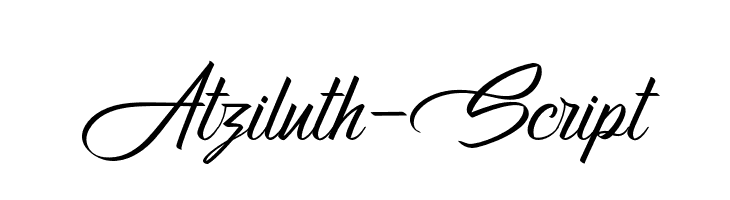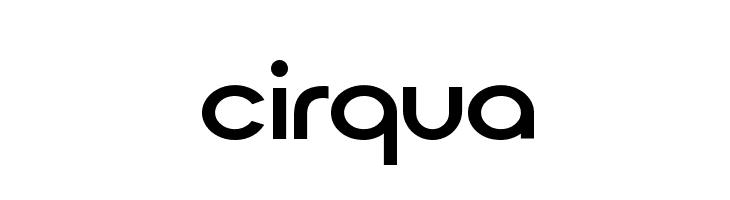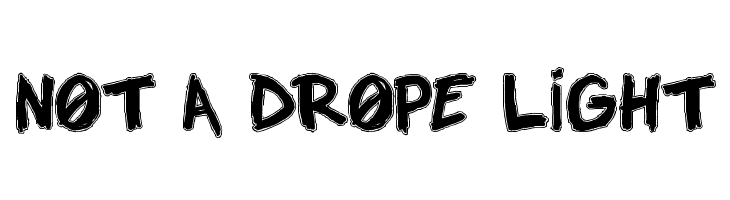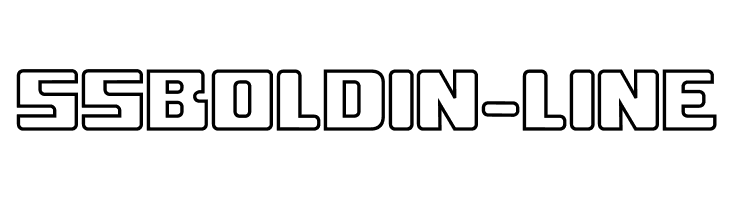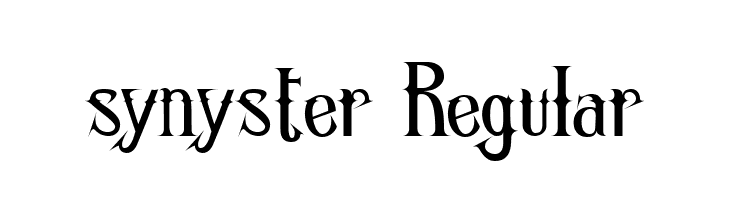
A bold, edgy font with sharp, angular elements and high contrast.
A bold, distressed font with a vintage, grunge aesthetic.
A playful, casual handwritten font with bold, expressive strokes.
A playful, thin handwritten font with a casual and dynamic style.
A modern sans-serif font with rounded edges and a geometric style.
A bold, futuristic font with geometric shapes and sharp angles.
A bold, playful handwritten font with fluid strokes and rounded edges.
A bold, playful font with cartoonish, exaggerated strokes.
A bold, geometric font with a blocky, pixel-art style.